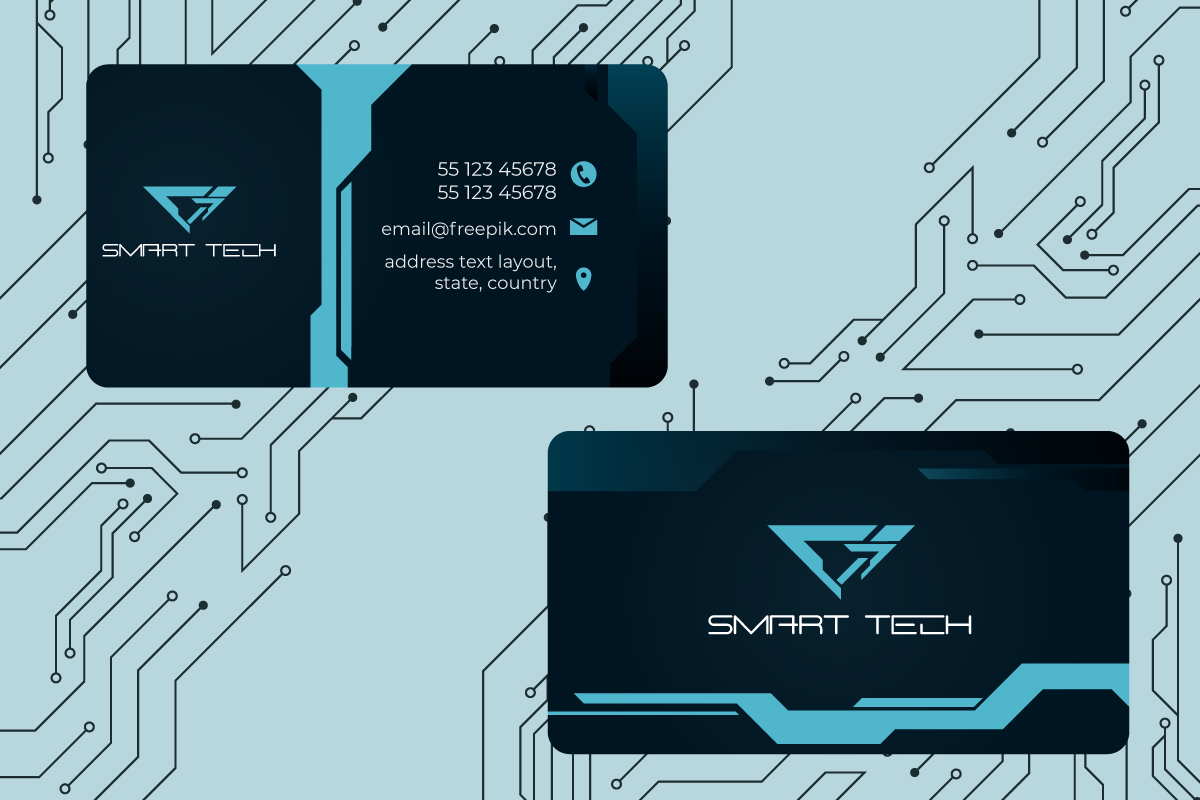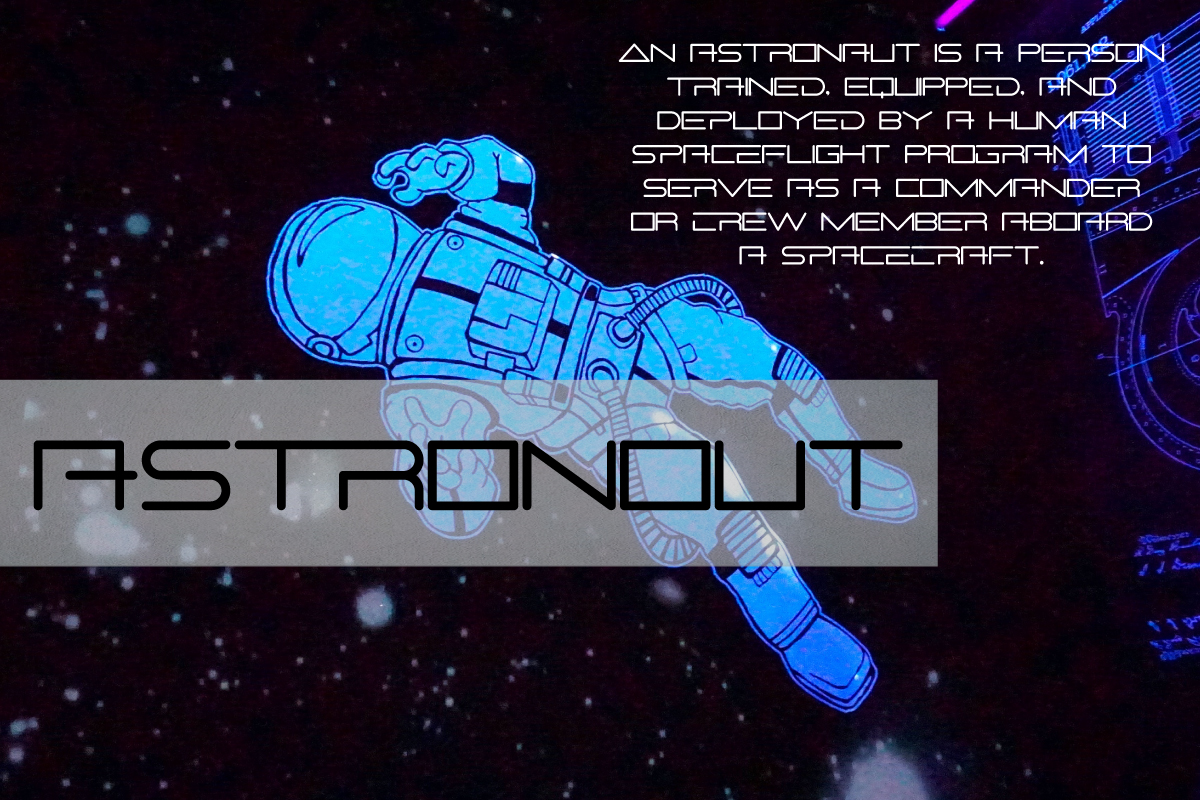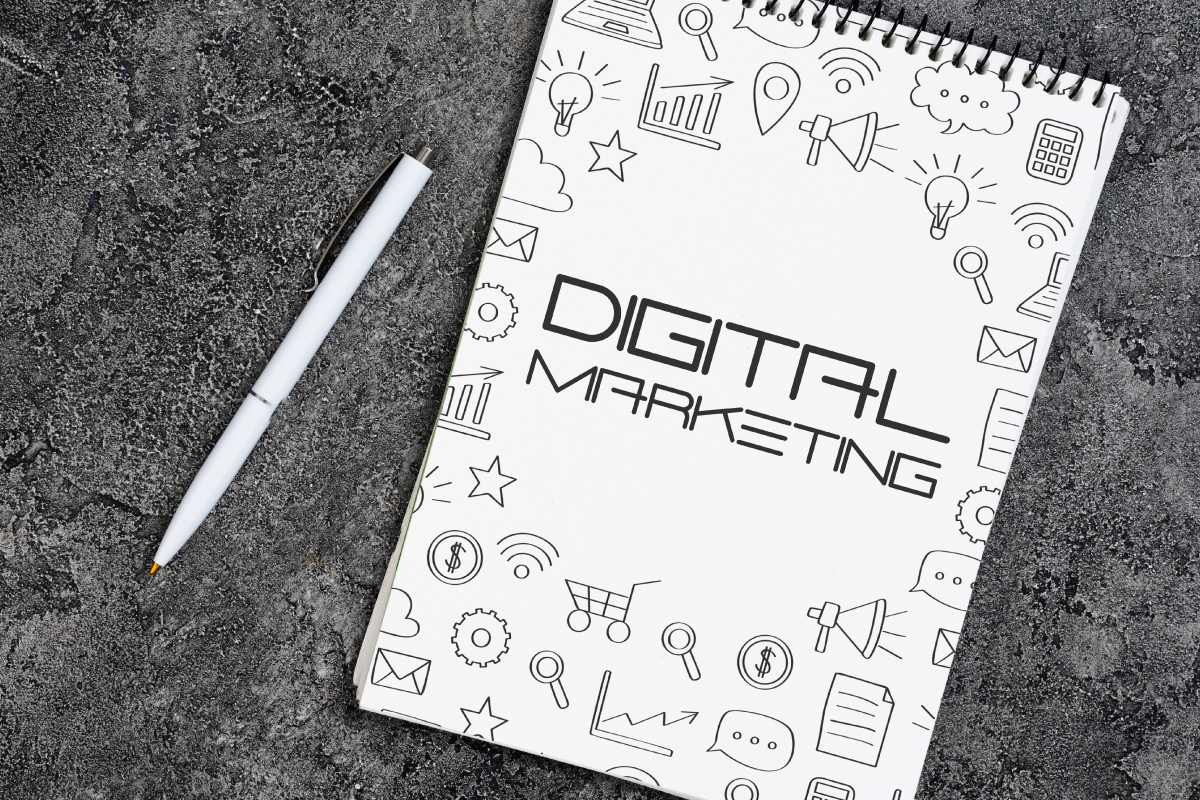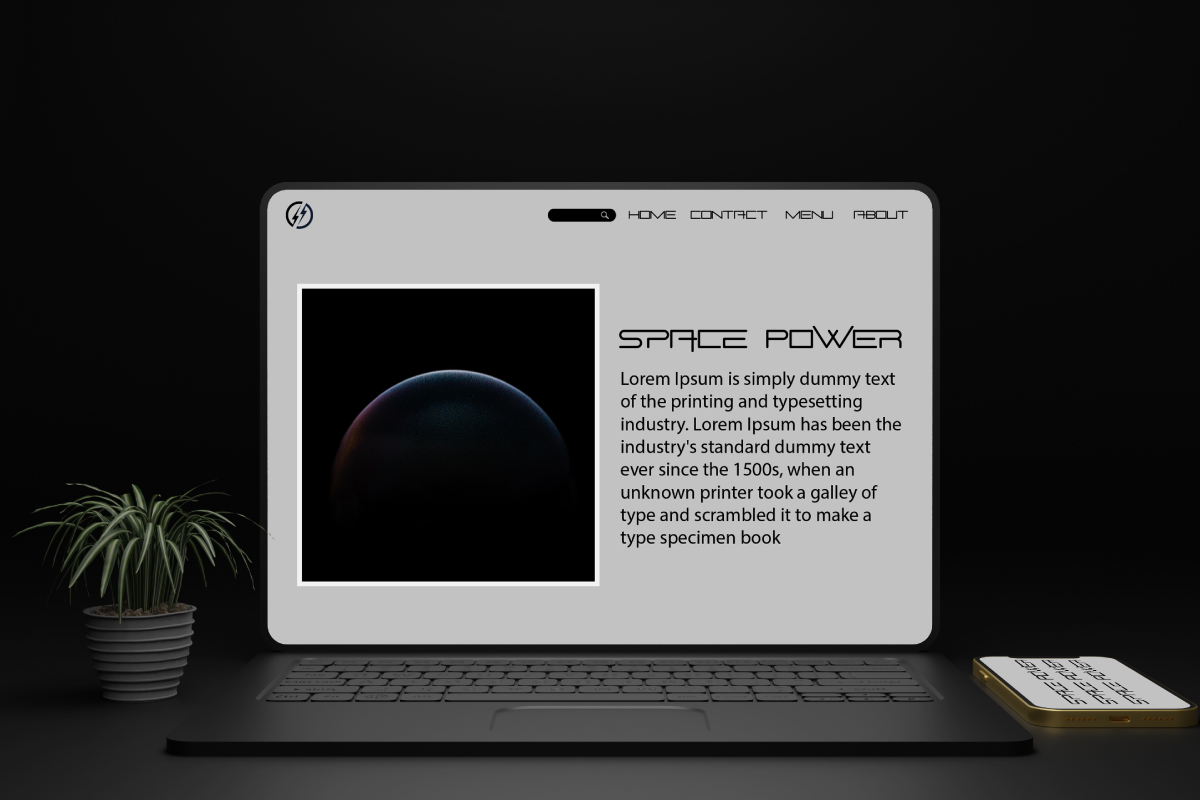
Space Power Font
Space Power Display Font
This font includes full set of gorgeous uppercase and numerals characters. The Font is remotely made by RaisProject team in Indonesia. It will be awesome for any your special projects including : headlines, promotion, events, branding, advertising, magazine, signage, invitation, stationery, social media posts, label, or and any projects that need unique strong style. The theme/industries of this font is Futuristic, Beauty, Technology, Game, Magazine, Music, Spaceship, aircraft etc.